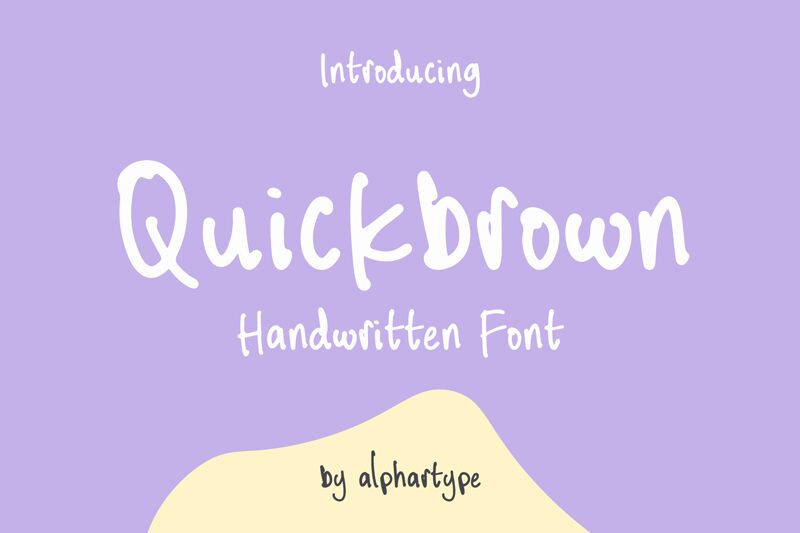
Quickbrown
The Quickbrown font exudes a bold, dynamic energy that captivates the eye. This handwritten-style typeface boasts an organic, free-flowing aesthetic, with each letter showcasing a unique character and personality. The irregular, expressive strokes lend a sense of authenticity and individuality, making Quickbrown an excellent choice for projects seeking a touch of artisanal flair.
Quickbrown's versatility shines through its ability to elevate a variety of design applications, from editorial layouts and packaging to branding and advertising. Its lively, handcrafted appearance effortlessly conveys a sense of authenticity, making it a suitable choice for projects seeking to evoke a personal, handmade touch. Whether used as a focal point or an accent, Quickbrown's distinctive personality is sure to leave a lasting impression.